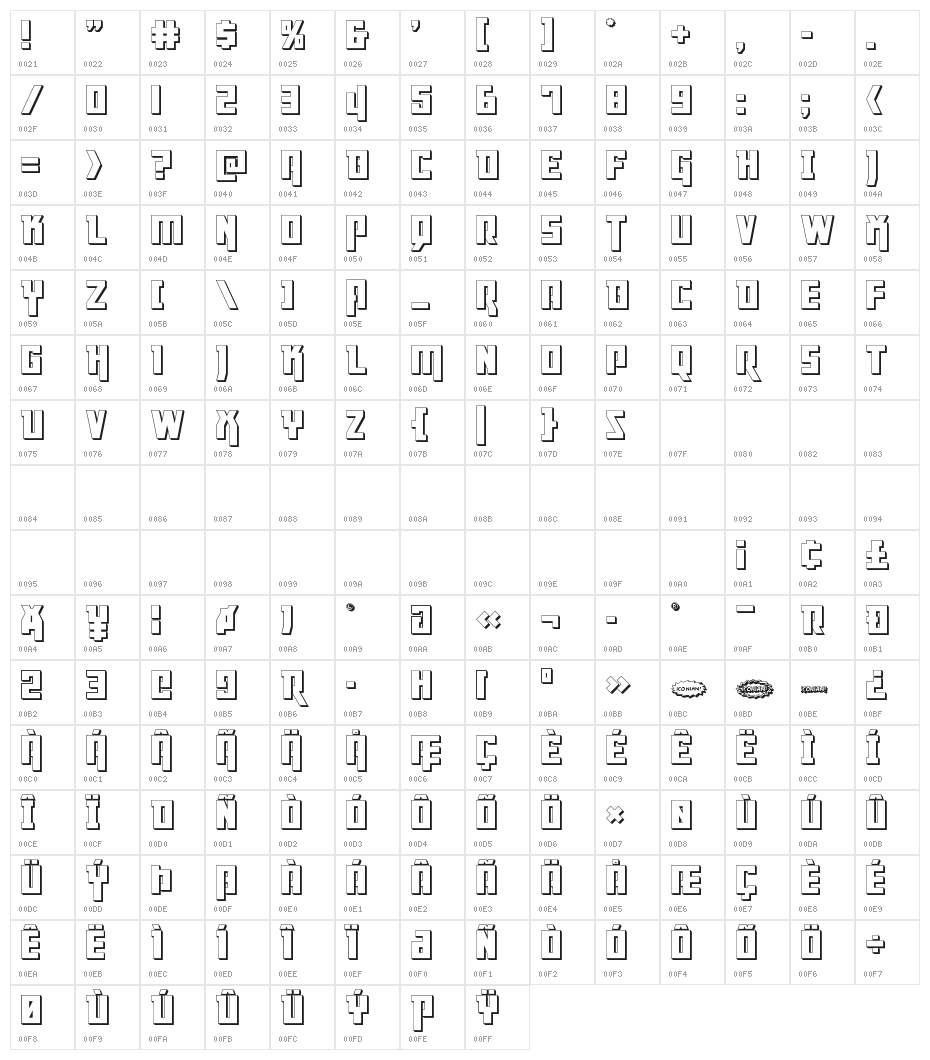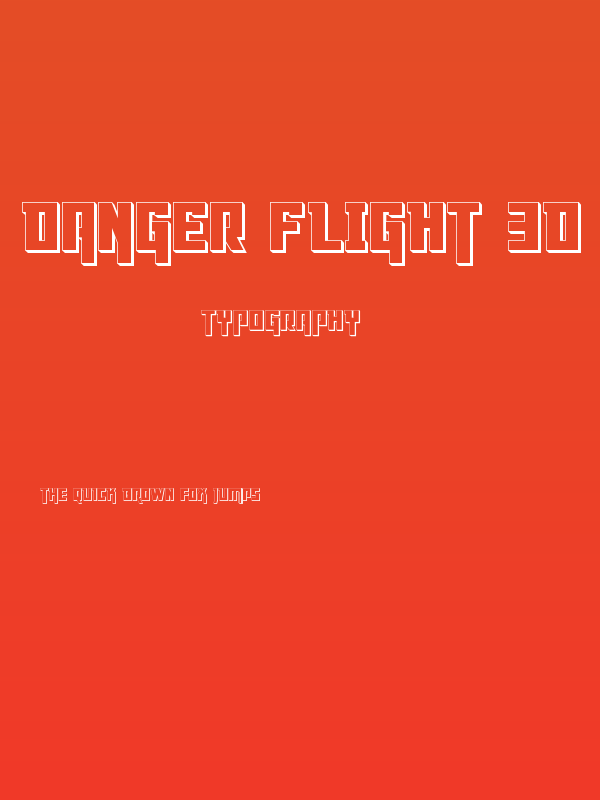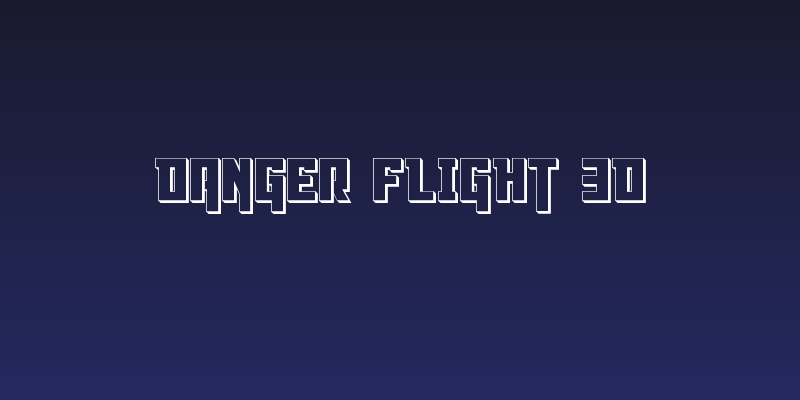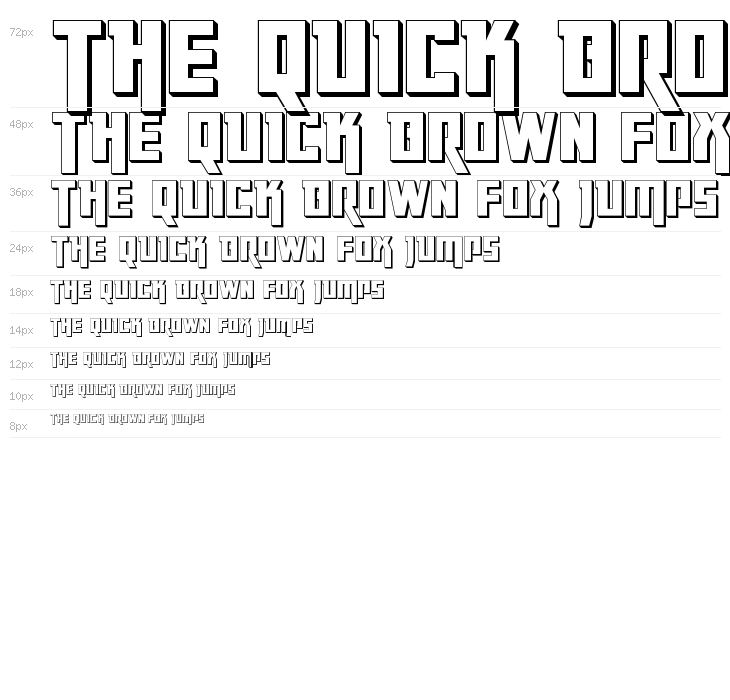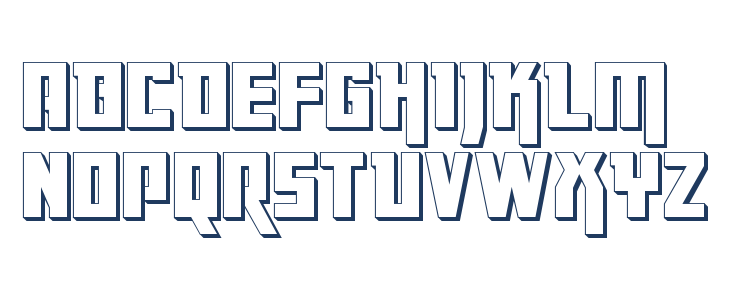
Danger Flight 3D Font
Danger Flight 3D Description
This font features a bold, three-dimensional design with a strong, geometric structure. Each character is outlined, creating a shadow effect that gives the impression of depth and solidity. The uppercase letters are angular and robust, with sharp edges and a blocky appearance. The numbers and special characters maintain this consistent style, ensuring a cohesive look across all elements. The font's unique 3D effect makes it stand out, ideal for projects that require a striking and modern aesthetic.
Proposed ProjectsIdeal for video game titles, movie posters, futuristic branding, and any project needing a bold, eye-catching typeface.